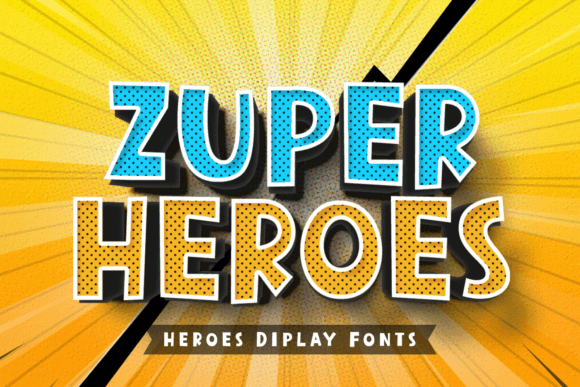
Introducing Zuper Heroes Font: Unleash Your Creativity with This Dynamic Display Typeface
Embrace the extraordinary with Zuper Heroes, a captivating display font that ignites your imagination and elevates your designs to new heights. This electrifying comic-style font exudes an aura of boldness and playfulness, making it the perfect choice for designers seeking to create captivating posters, book covers, headlines, magazines, apparel, and more.
Embark on a journey where your creativity knows no bounds. Zuper Heroes empowers you to craft designs that resonate with your audience, leaving a lasting impression that lingers in their minds. Its distinctive letterforms, bursting with energy and personality, command attention and ignite a connection with your message.
With Zuper Heroes, you'll unlock a world of possibilities, transforming ordinary designs into captivating masterpieces. Its versatility knows no limits, allowing you to effortlessly create designs that ooze confidence, excitement, and adventure. Whether you're a seasoned designer or just starting, Zuper Heroes is your secret weapon to unleashing your inner artist and crafting designs that leave an unforgettable mark.
Immerse yourself in the world of Zuper Heroes and let your imagination soar. This font is your ticket to creating designs that resonate, designs that speak to the heart and leave a lasting legacy. Its captivating charm will captivate your audience, leaving them eagerly anticipating your next creation.